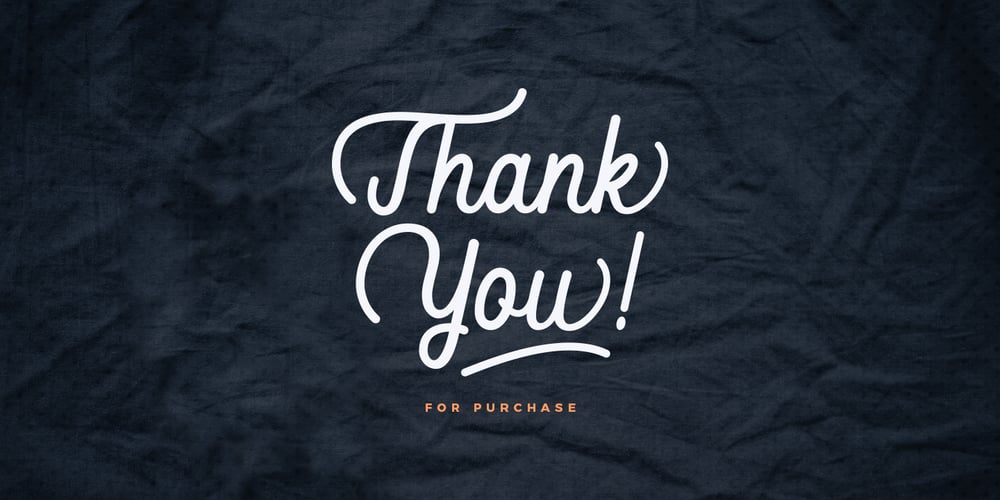
Fountaine Font Family was designed by published by Unicode Studio. Fountaine contains 2 styles and family package options. Fountaine script is a fresh new font script that comes in both clean and rough styles, so this font can provide an alternative, new sensation and vintage feel for the designer or craftsperson working on various projects. This font is perfect for all your projects such as wedding invitations, greeting cards, branding materials, business cards, quotes, posters, insignia, badges, greeting cards, vintage logos, or you can use this font for logo projects (logotypes) and more! Fountaine script comes with a total of 325 glyphs. The alternative characters are divided into several Open Type features such as Swash, Stylistic Sets, Stylistic Alternates, Contextual Alternates, and Ligatures. The Open Type features can be accessed by using Open Type savvy programs such as Adobe Illustrator, Adobe InDesign, Adobe Photoshop, Corel Draw X version or Microsoft Word. And this Font includes PUA Unicode (specially coded fonts) so that all the alternate characters can easily be fully accessed by a craftsperson or designer on either Windows or Mac computers without the requirement for fancy design software. Mail support: If you have any question, please contact me Via e-mail “unicodestudio@gmail.com” Thank You!